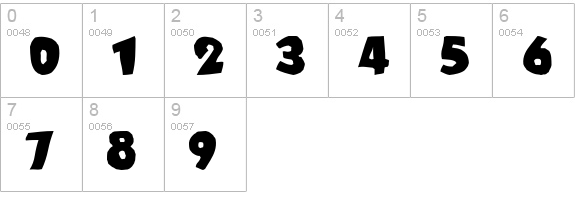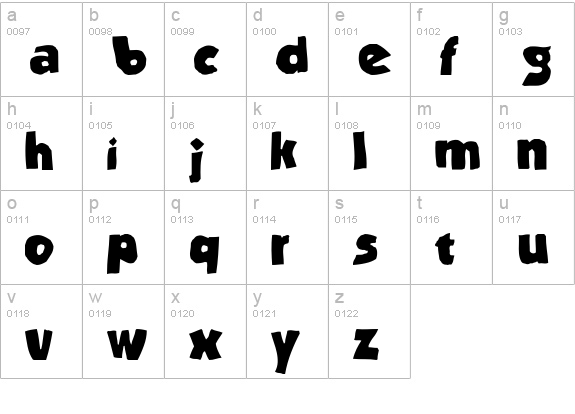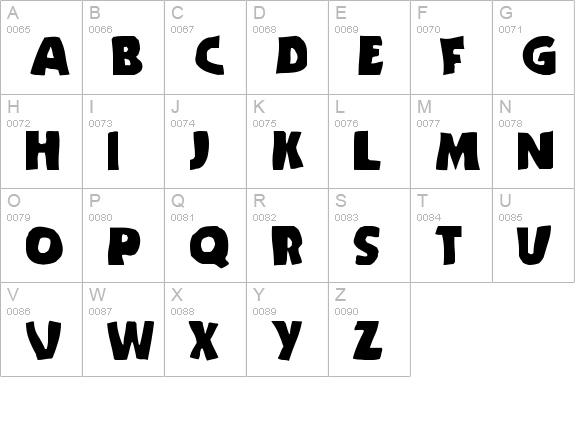
Stranded BRK font is a captivating and unique typeface that exudes a sense of adventure and mystery. With its rugged and weathered appearance, this font is perfect for projects that require a touch of rustic charm. The uneven strokes and distressed edges give Stranded BRK font a handcrafted feel, making it ideal for designs that call for a touch of authenticity. What makes Stranded BRK font even more enticing is that it is completely free to download at FontsMarket.com. This means you can easily add this versatile font to your collection without any cost. Whether you're working on a branding project, poster design, or digital art piece, Stranded BRK font is sure to make a bold statement and captivate your audience. Don't miss out on the opportunity to enhance your designs with the striking and distinctive Stranded BRK font. Download it today at FontsMarket.com and unleash your creativity with this one-of-a-kind typeface.